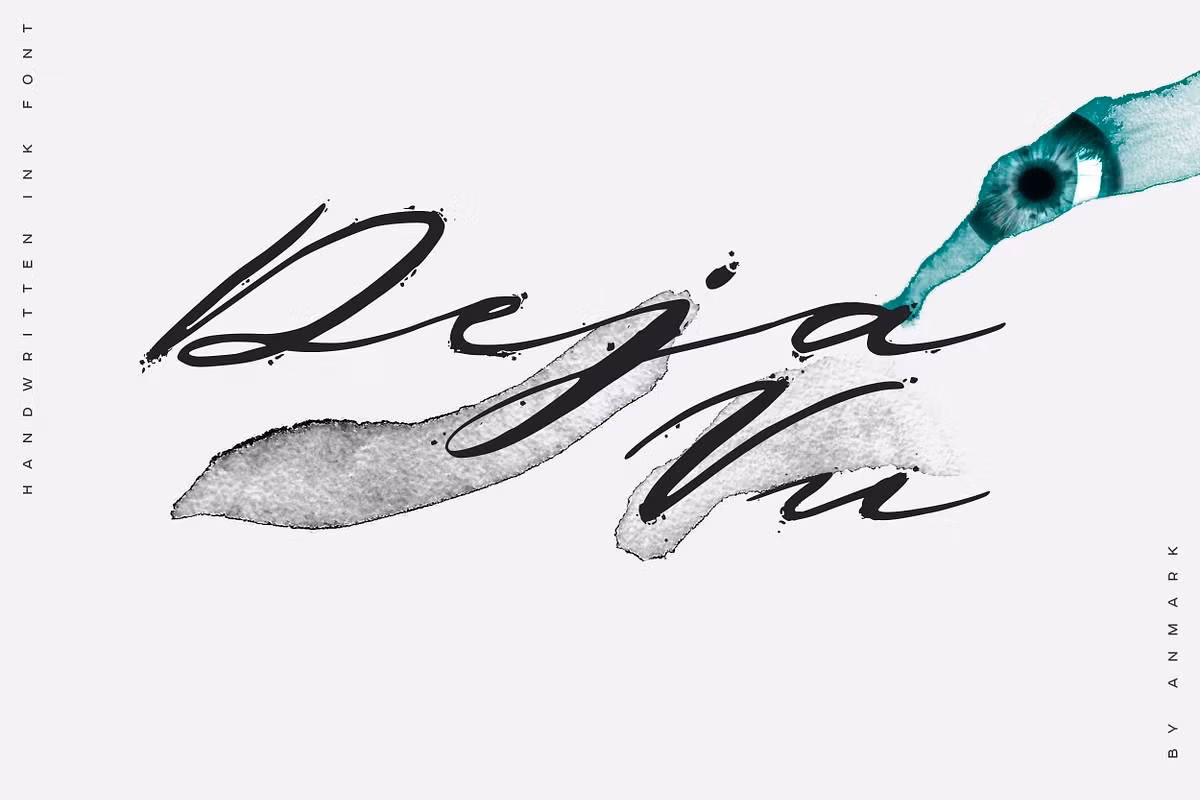
Deja Vu. Handwritten Ink Font Free Download
Deja Vu. Handwritten Ink Font Free Download is a beautifully raw and expressive typeface that captures the natural flow of ink on paper. With its fluid strokes and authentic texture, this handwritten font is perfect for personal branding, quotes, greeting cards, album covers, social media graphics, and other creative projects that crave a personal, human touch.
Designed to feel spontaneous yet stylish, Deja Vu brings warmth and character to any layout. Its slightly messy, inky vibe gives your text an artsy, emotional feel—great for anyone looking to add soul and depth to their typography.